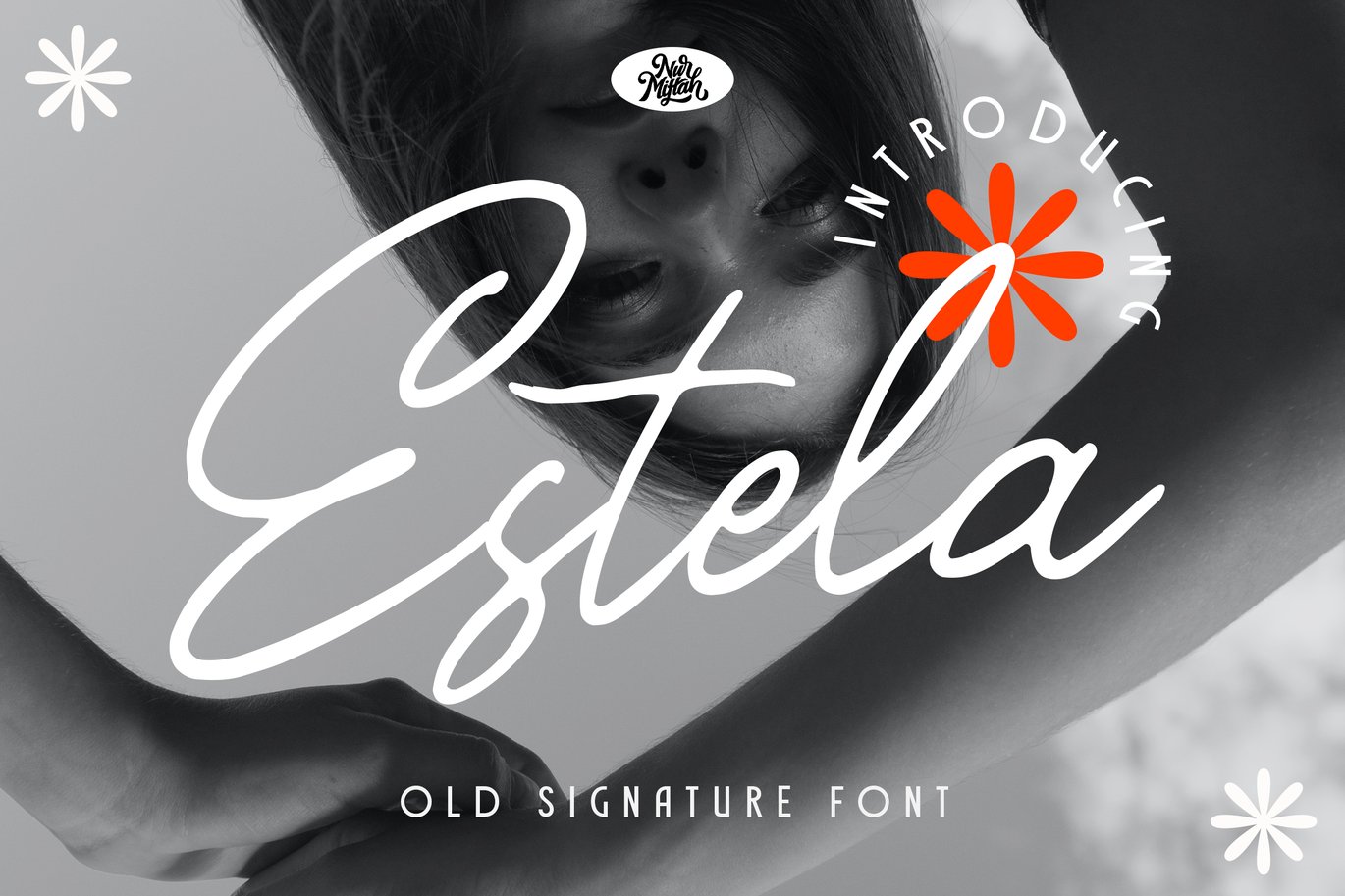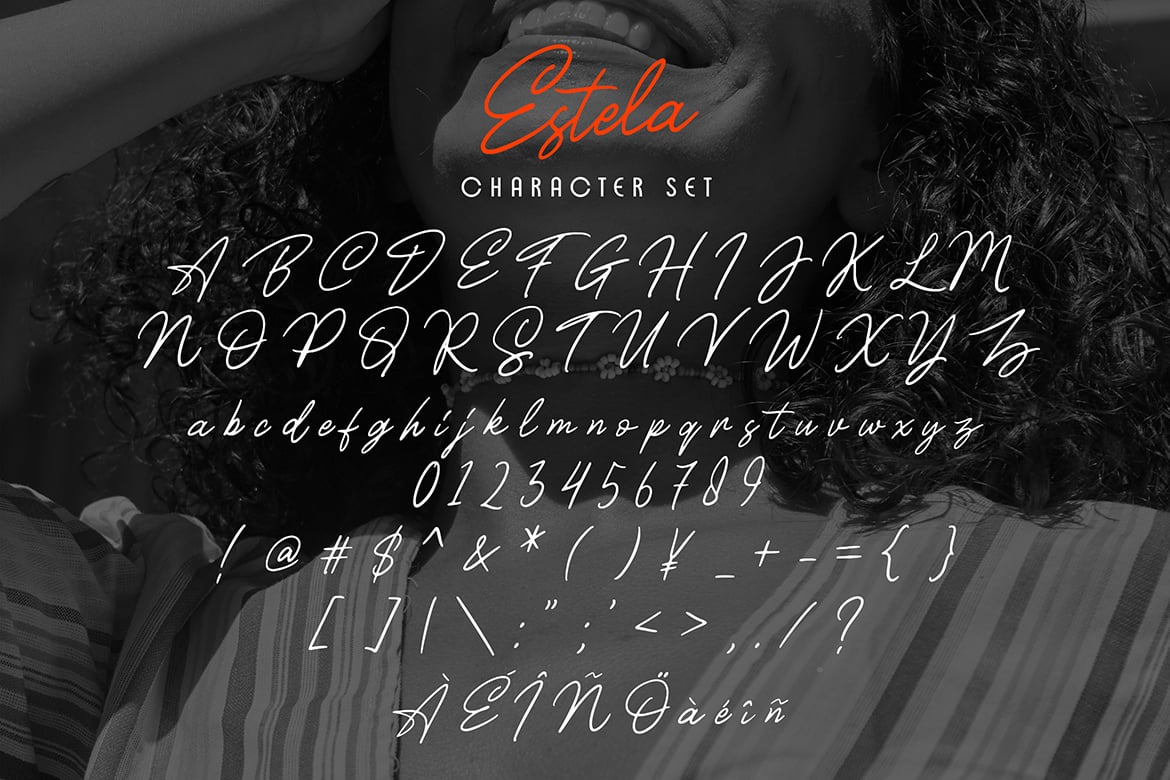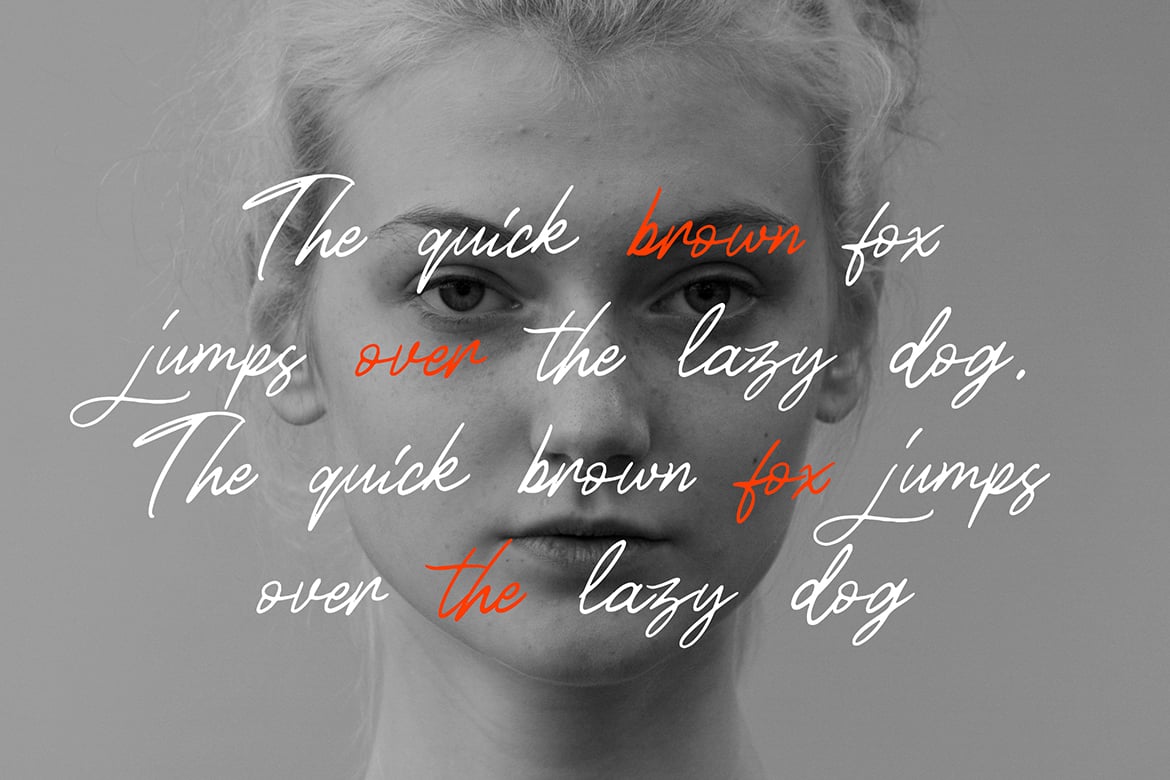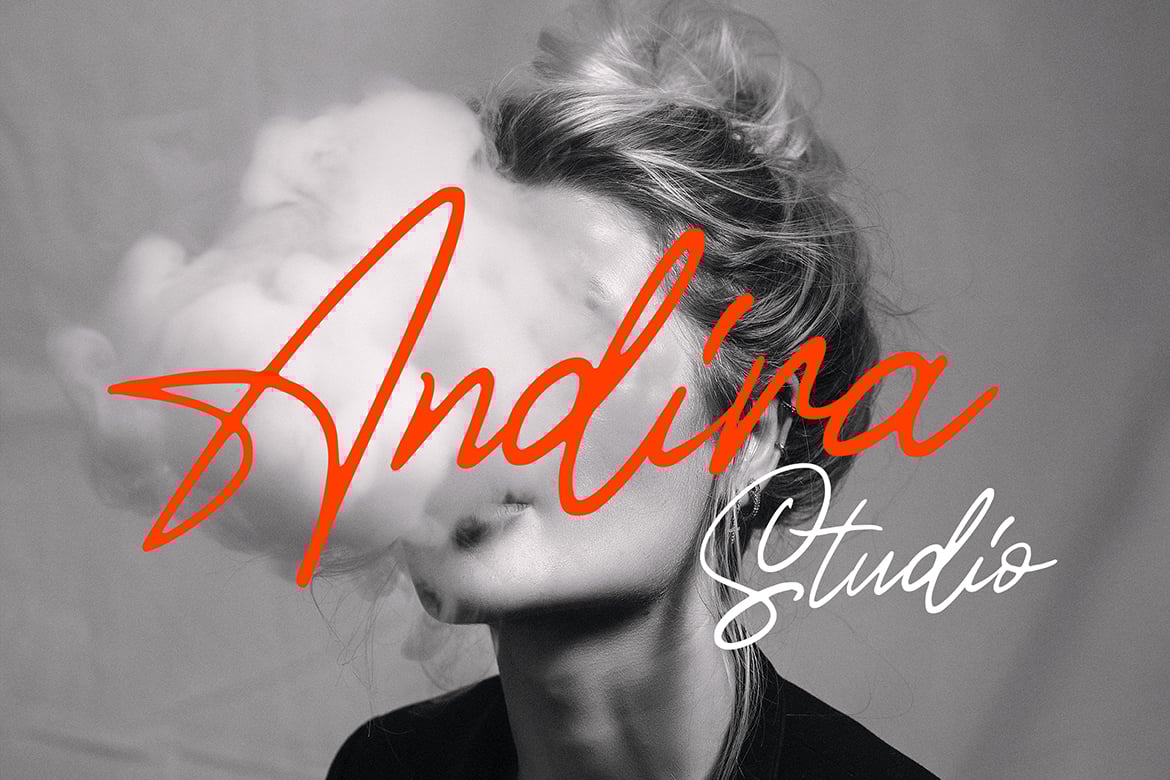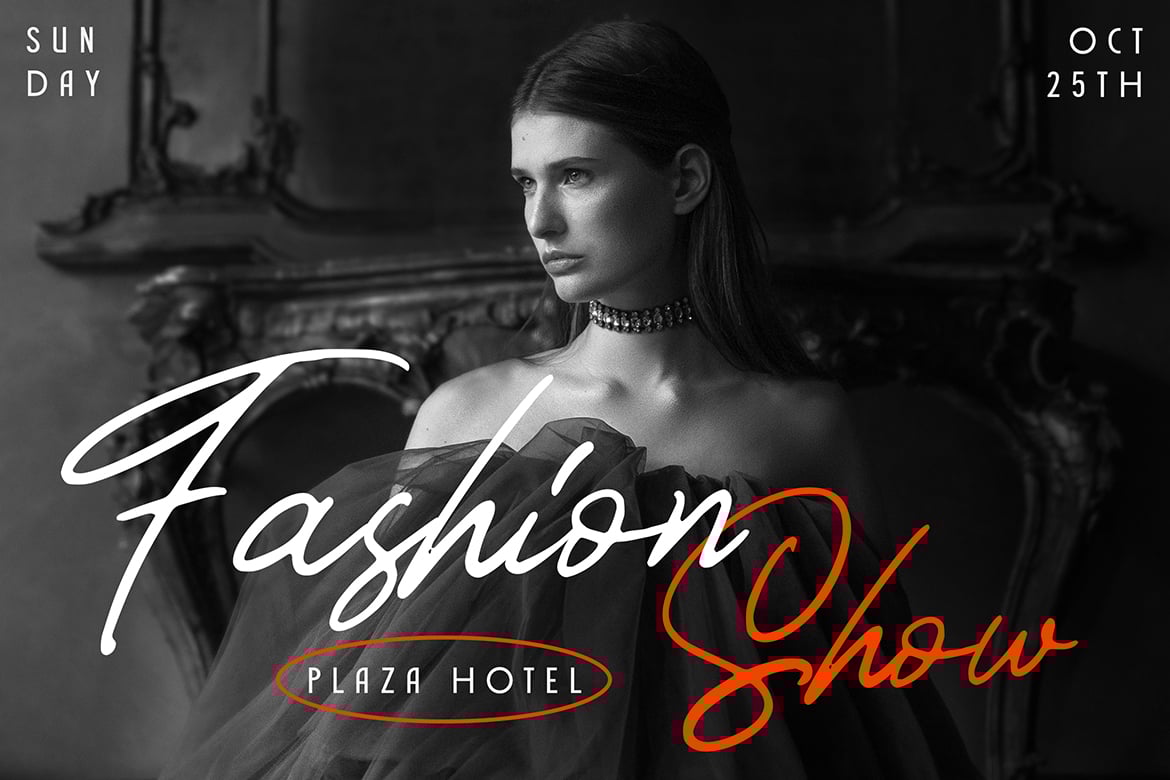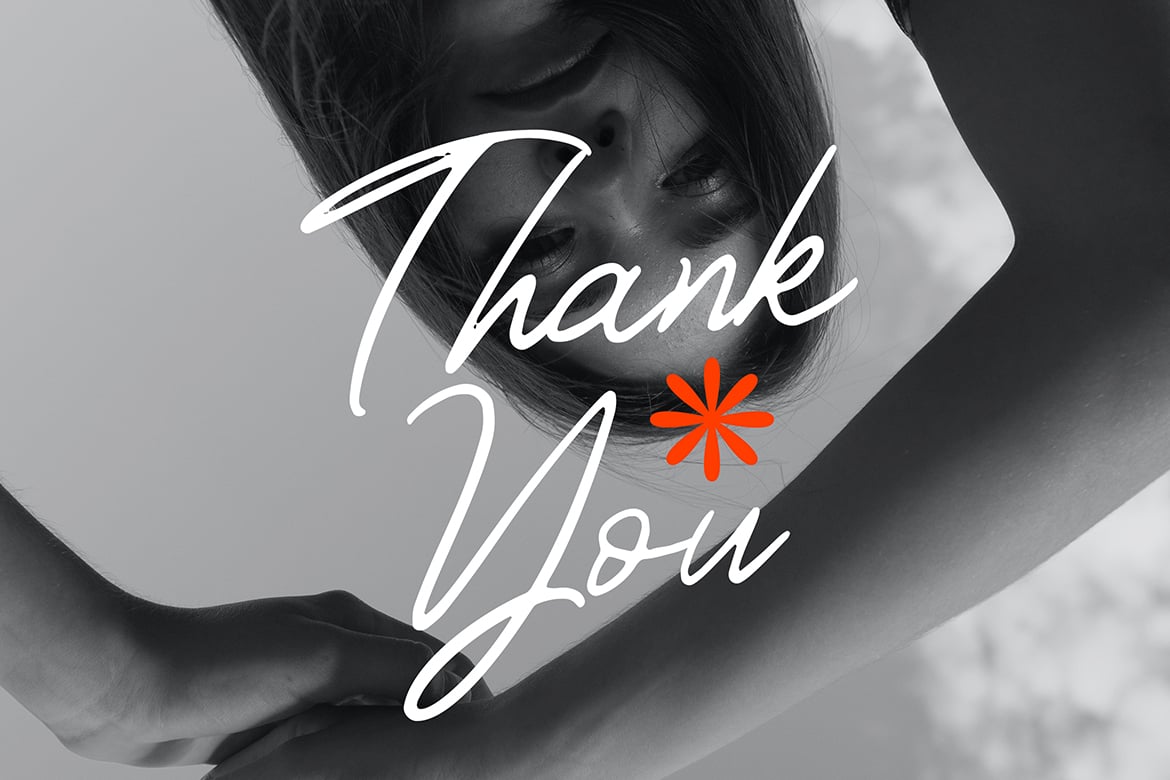
Estela Signature Font
Estela Font can be used for various media like special events,
invitation, packaging, poster, wedding, movie titles, book titles,
social media, logos, branding, and others.